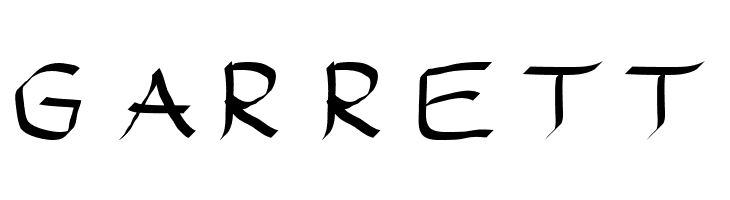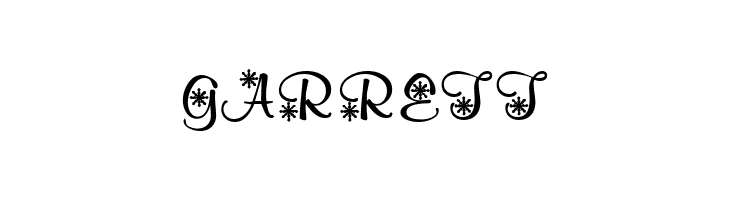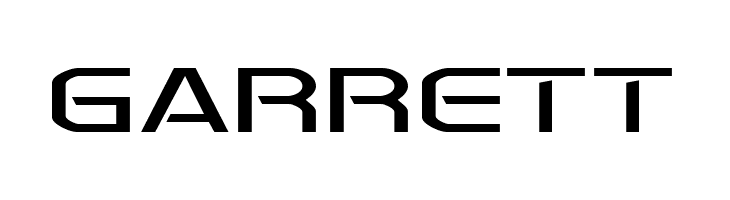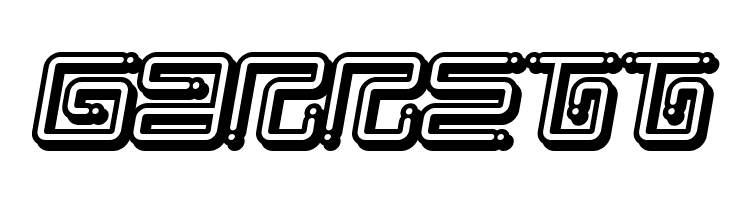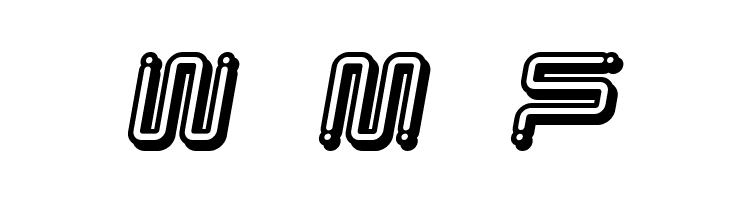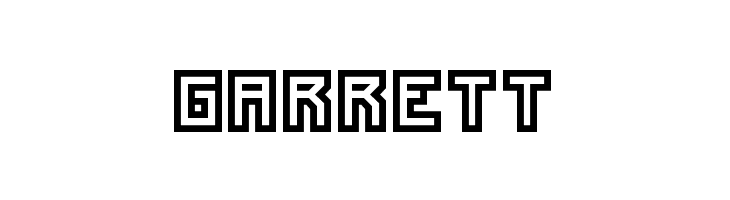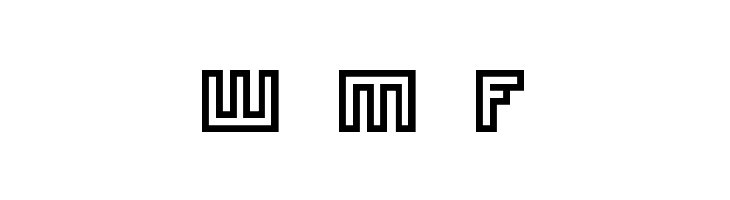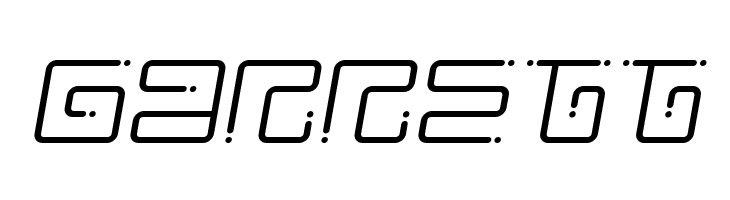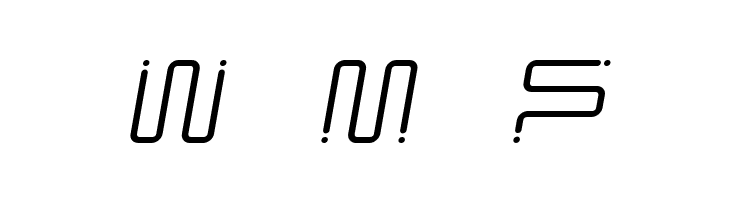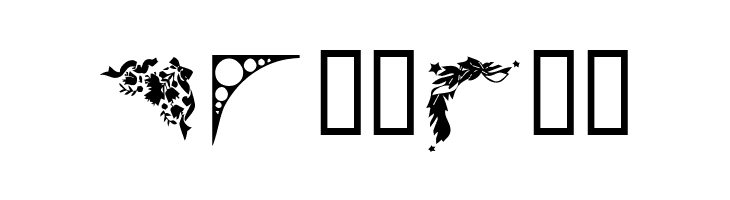
A bold, futuristic font with geometric and stencil-like design.
A bold, calligraphic font with sharp, angular strokes and artistic flair.
A futuristic, geometric font with high contrast and angular design.
A bold, distressed font with an edgy, futuristic design.
A distressed, modern font with a grunge aesthetic and geometric design.
A flowing, elegant script font with a sophisticated and stylish appearance.
An elegant script font with intricate loops and flowing curves.
An elegant and ornate script font with intricate swirls and flourishes.
A bold, modern font with thick, uniform strokes and a slightly condensed style.
A geometric, outline font with a futuristic and digital style.
A bold, hand-drawn comic-style font with a playful and informal vibe.
A bold, playful font with rounded, exaggerated forms and a dynamic tilt.
A bold, angular font with a powerful and dynamic style.
A bold, playful font with a hand-drawn, quirky style.
A bold, jagged font with a horror-inspired, hand-cut appearance.
A bold, distressed font with jagged edges and a dynamic, edgy style.
A dynamic, edgy script font with sharp, angular strokes and a bold, dramatic style.
A bold, playful handwritten font with thick, consistent strokes and a casual vibe.
A bold, distressed font with a grunge-like, hand-drawn appearance.
A bold, playful font with a cartoonish style and strong presence.
A bold, distressed font with a grungy, irregular texture.
A decorative font with intricate floral illustrations replacing standard characters.
A decorative font with holiday-themed icons for various celebrations.